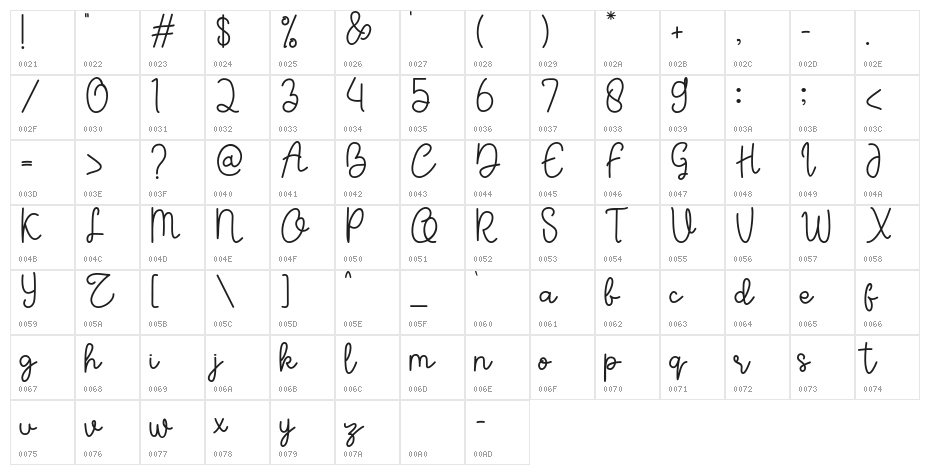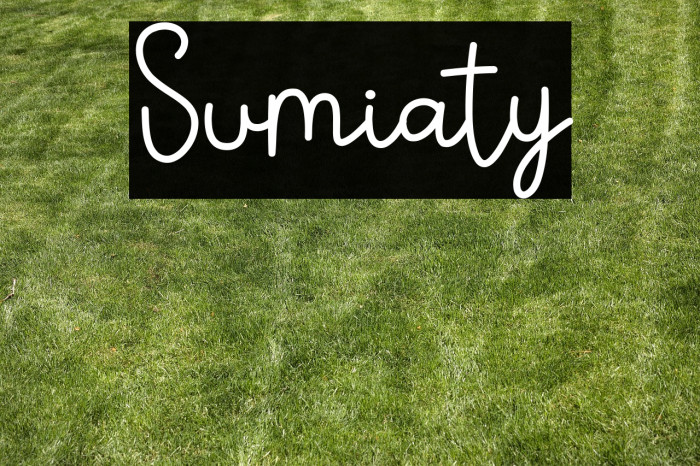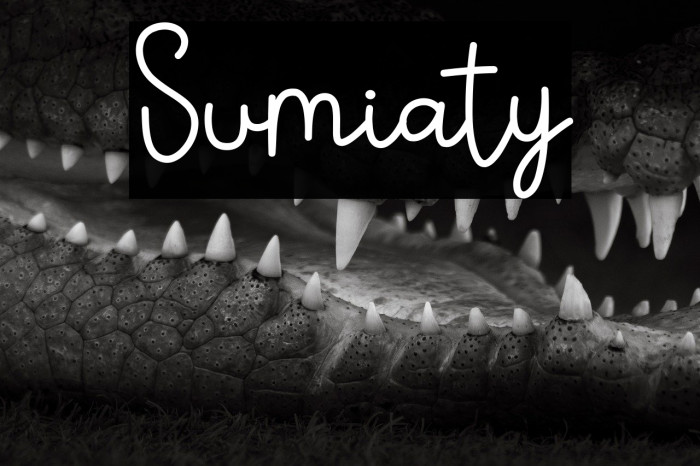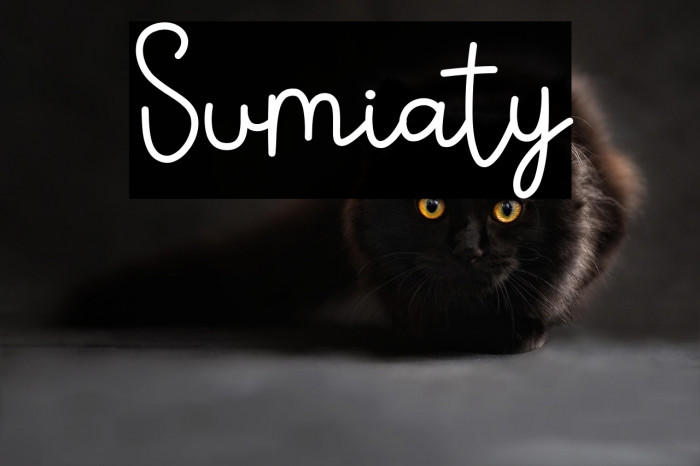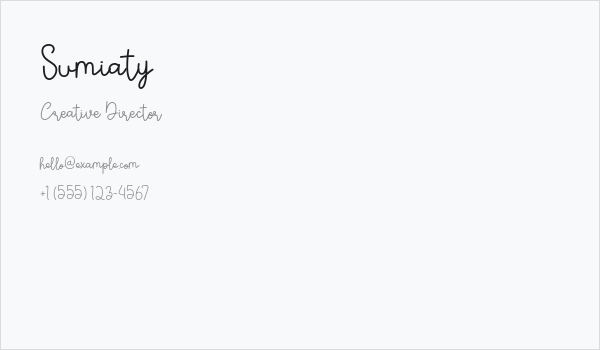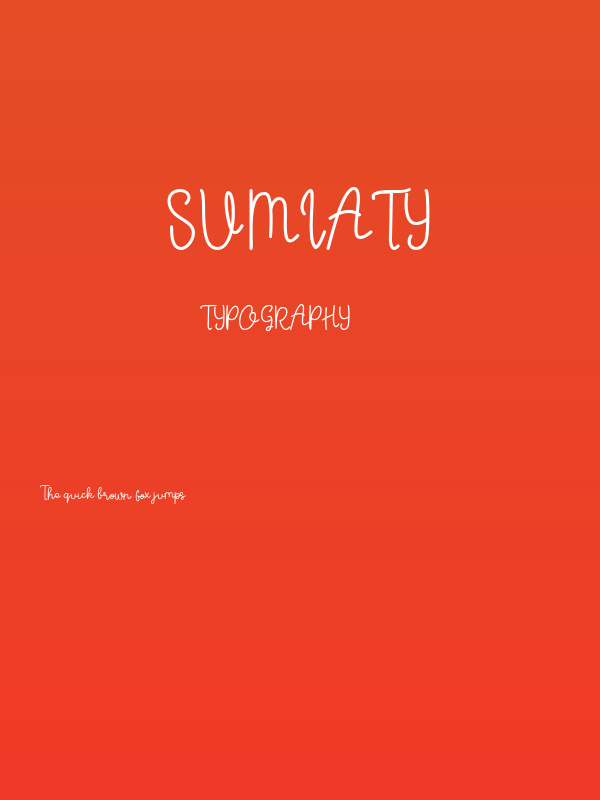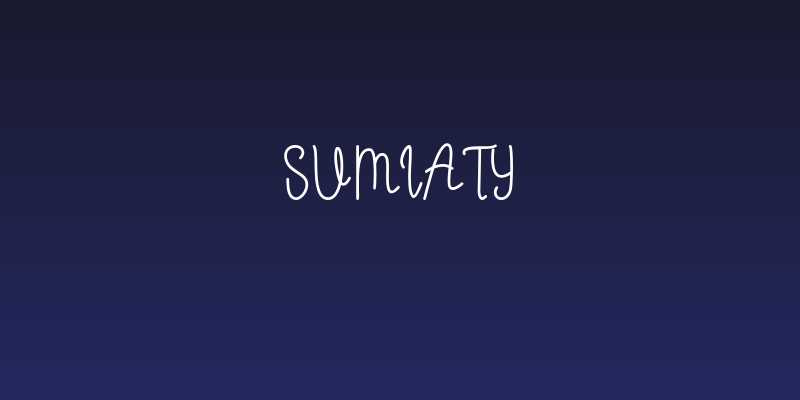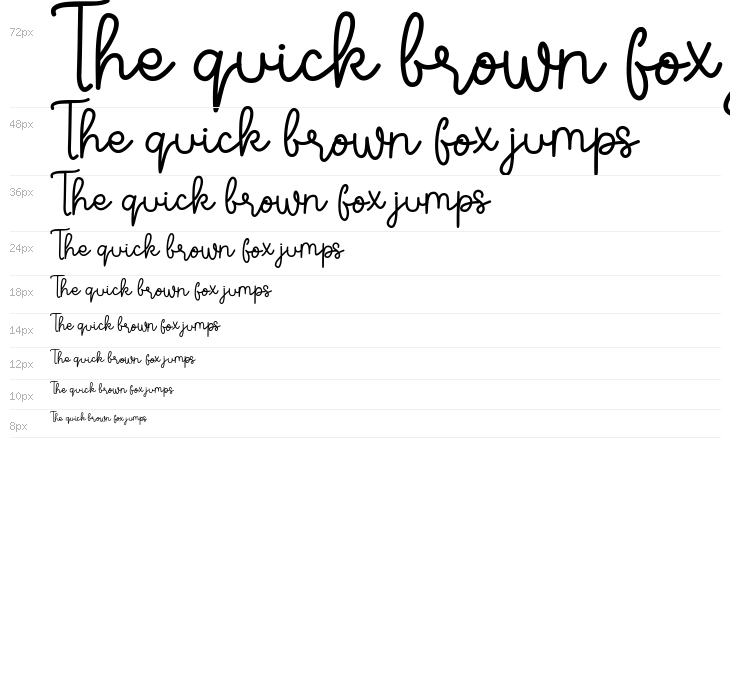
Sumiaty Font
Sumiaty Description
This font features a playful and casual handwritten style, characterized by smooth, flowing lines and a consistent stroke width. The uppercase letters are slightly taller than the lowercase, with a whimsical touch that adds personality to each character. The numerals and special characters maintain the same playful aesthetic, making the font versatile for various creative projects. The overall appearance is friendly and approachable, with a touch of elegance that makes it suitable for both informal and semi-formal applications.
| Use Case | Logos, Invitations, Social Media Graphics |
| Proposed Projects | Ideal for greeting cards, invitations, personal branding, and creative social media graphics. |